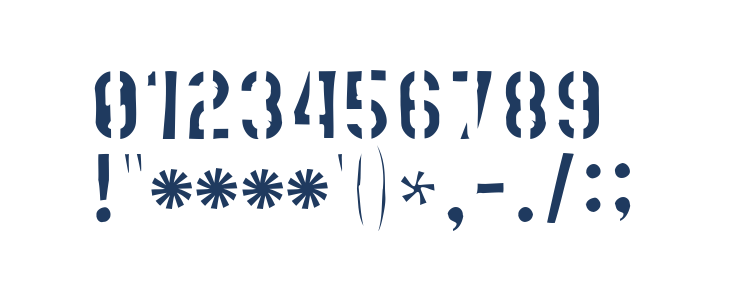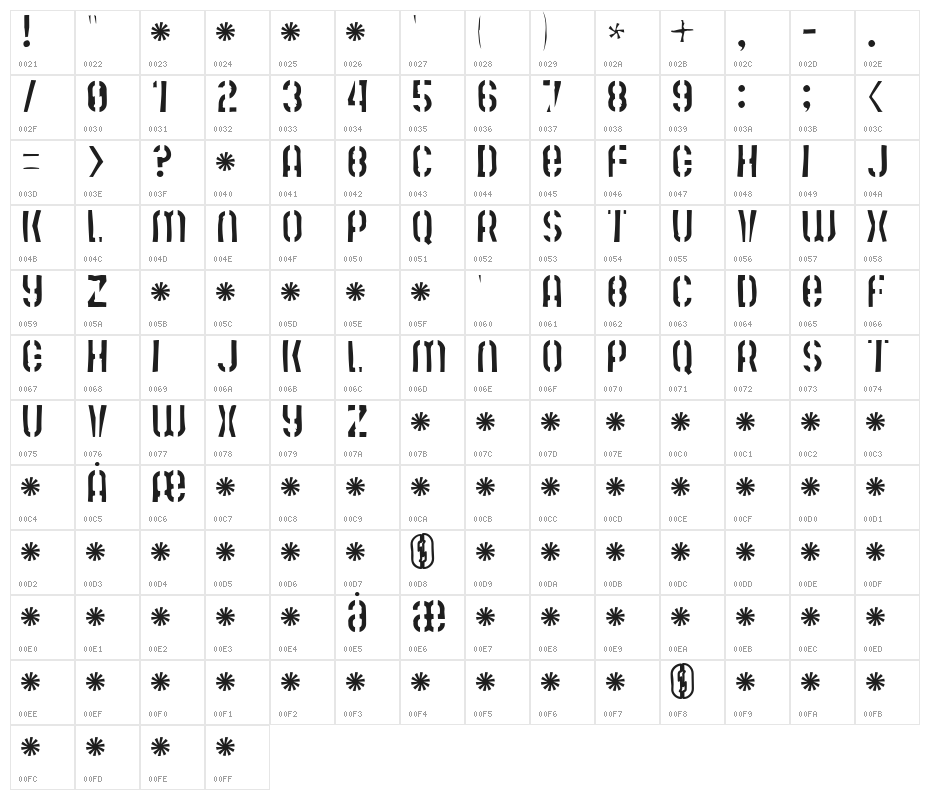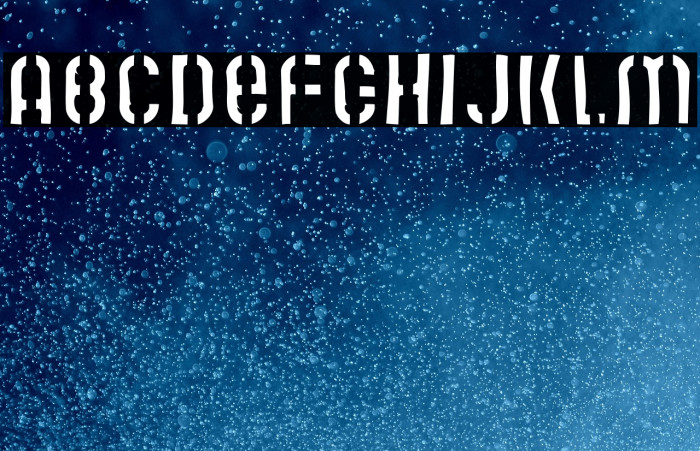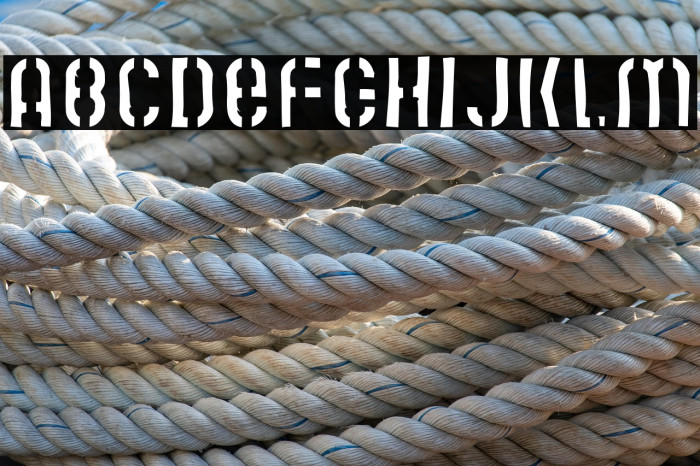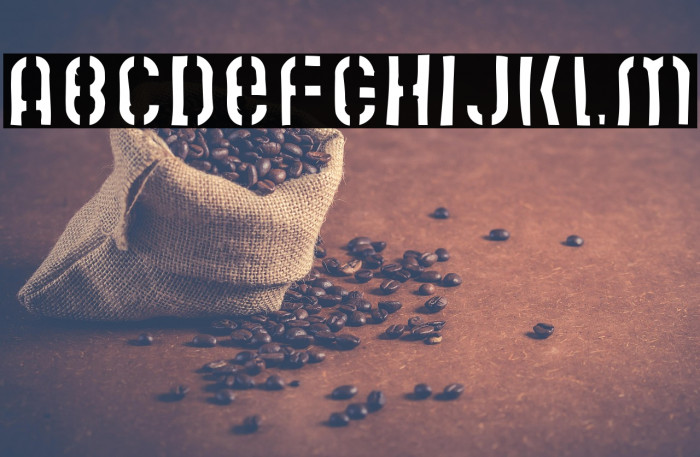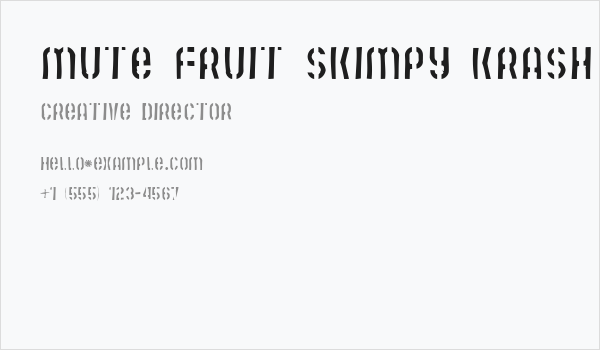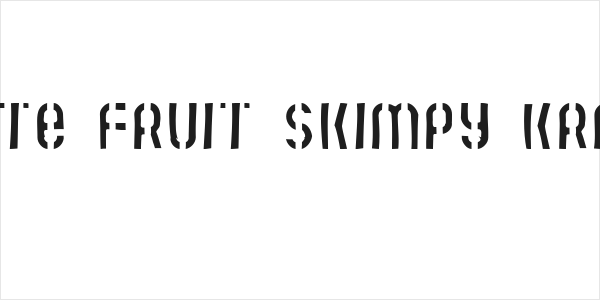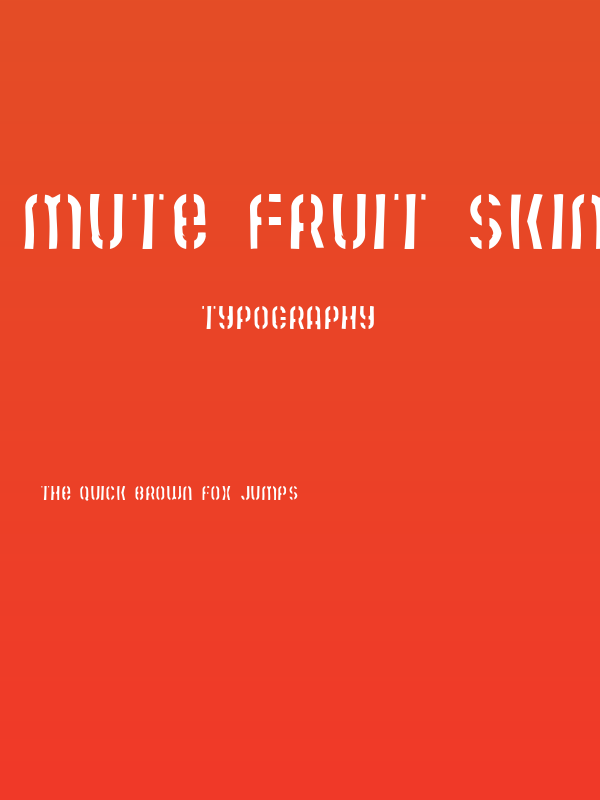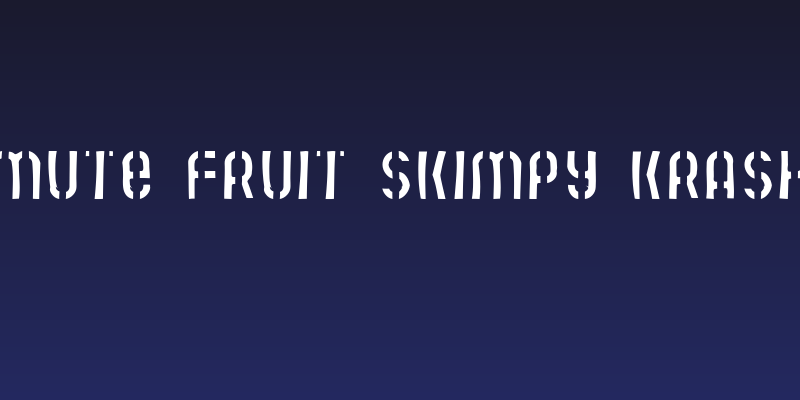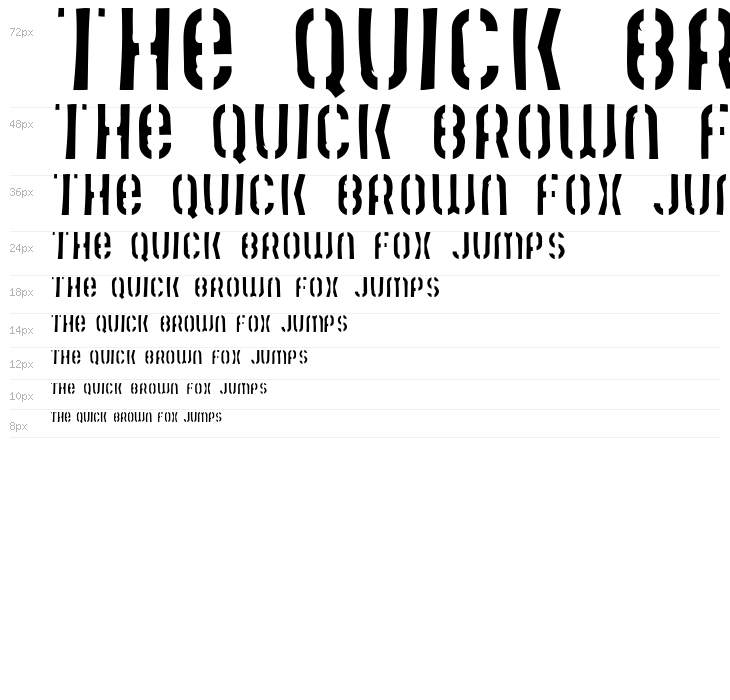
Mute Fruit Skimpy Krash Font
Mute Fruit Skimpy Krash Description
This font features a bold, stencil-like design with strong geometric shapes and high contrast between thick and thin strokes. The characters are constructed with a distinct cut-out style, giving them a rugged, industrial appearance. The uppercase and lowercase letters maintain a consistent width, contributing to a uniform look. The numerals and special characters follow the same design principles, ensuring cohesion across all glyphs. This font's unique style makes it stand out, ideal for projects requiring a bold and impactful visual statement.
Overall StyleIndustrial, Modern
Proposed ProjectsIdeal for posters, signage, branding, and any project needing a strong, industrial aesthetic.